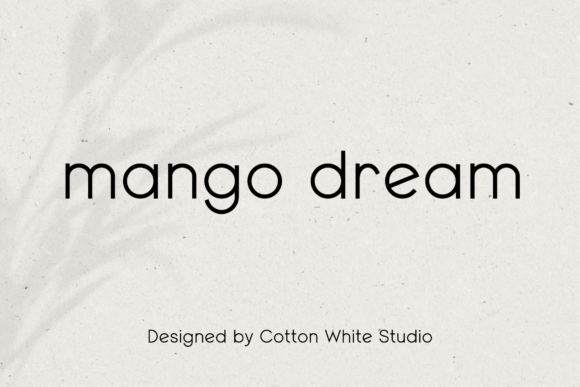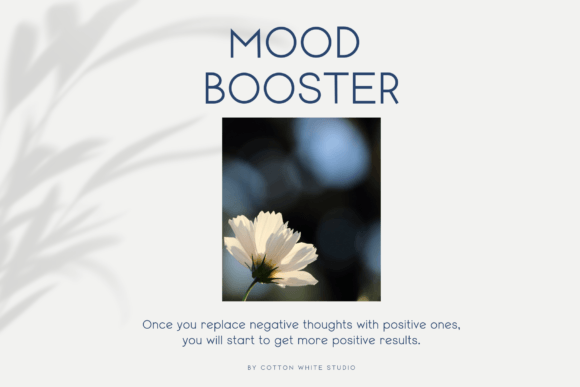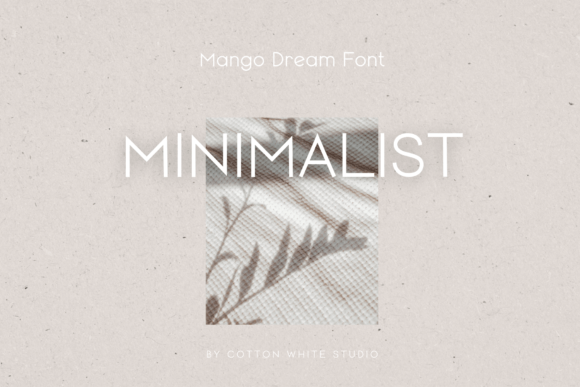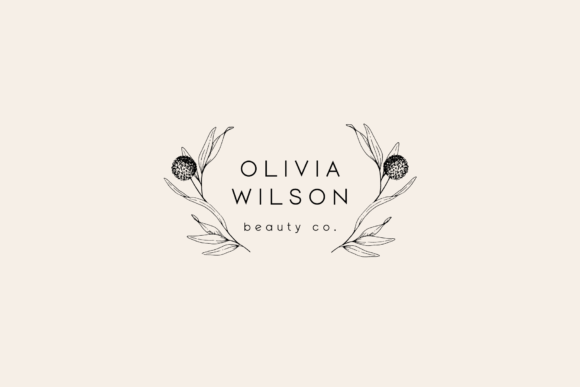
Mango Dream Font
About the Mango Dream Font
Get ready to be inspired by Mango Dream Font, a fresh and dynamic typeface for modern creators. Mango Dream is a modern sans-serif font with a round and minimalistic shape. Its clean and contemporary design is a great choice for any project that needs a professional touch. It comes with multilingual support, so you can use this font to reach a global audience. Whether you’re working on a website, branding materials, or marketing campaigns, this font is sure to become a go-to in your design toolkit.
Mango Dream’s clean lines and rounded forms make it ideal for headlines, branding applications, and short-form text on packaging or posters. Its minimalist nature lends itself well to modern and contemporary projects requiring a friendly yet professional feel. However, the thin strokes may make it less suitable for body text or lengthy paragraphs, hindering readability.
For optimal visual harmony, pair Mango Dream with a contrasting serif font like Playfair Display for a touch of classic elegance, or a geometric sans-serif such as Montserrat for a bolder, more contemporary feel. A script font like Great Vibes could add a playful yet sophisticated element to specific design components.
The overall personality of Mango Dream is approachable and modern, conveying a sense of sophistication without being overly serious. This makes it perfect for brands seeking a clean, contemporary image that communicates both professionalism and approachability.
Mango Dream Font Usage Examples
Mango Dream Font Example